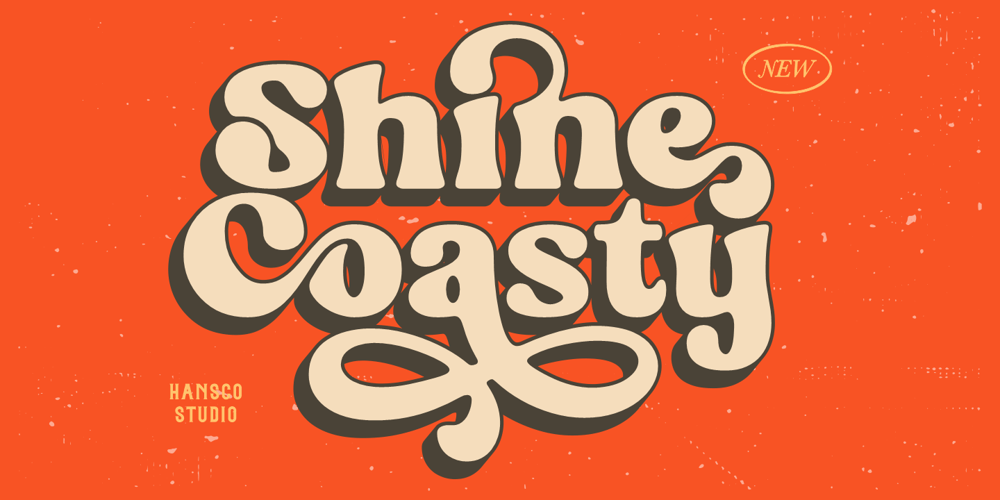
Shine Coasty Font Family was designed by Burhan Afif and published by HansCo. Shine Coasty contains 1 styles and family package options. Shine Coasty font is a retro serif and bold display font. You will get alternate characters such as swash on some characters. Use this display font to add that special retro touch to any design idea you can think of!. Masterfully designed to become a true favorite, this font has the potential to bring each of your creative ideas to the highest level!Very suitable for logotype, Stickers, Packaging design, Cricut Project, headlines, brand identity, t shirt or apparel industry, posters, magazines, books, YouTube, Instagram, websites, or any of your creative design projects.Enjoy!